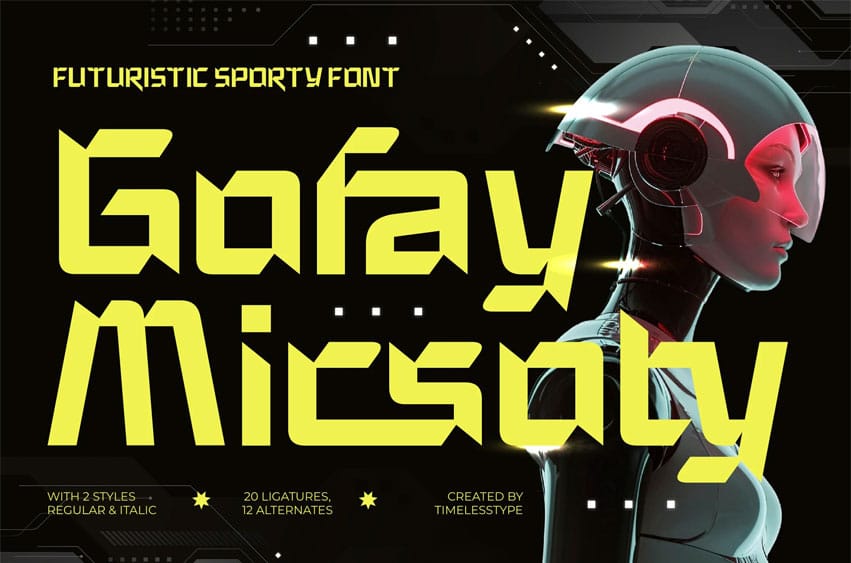
Gofay Micsoty Font is a futuristic sporty font designed with sharp geometry and dynamic energy. With 20 ligatures and 12 alternates, this typeface delivers a modern and powerful look ideal for tech branding, e-sports, sci-fi posters, and digital interfaces.
The bold structure and clean edges make Gofay Micsoty perfect for projects that demand a high-tech and cutting-edge visual identity.